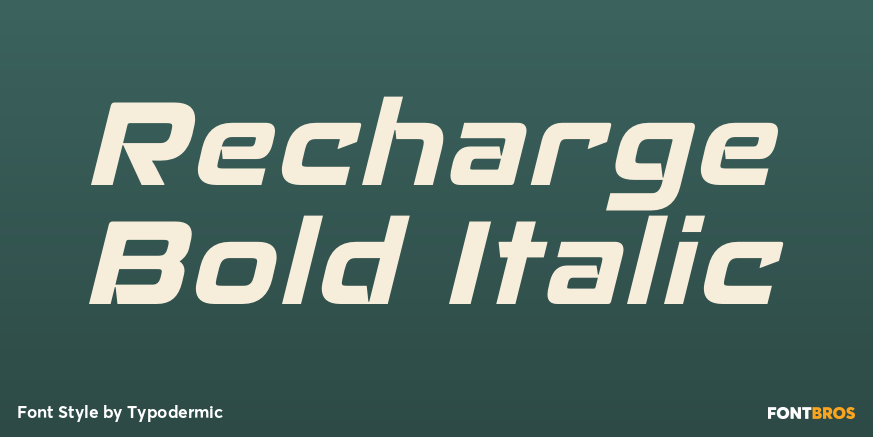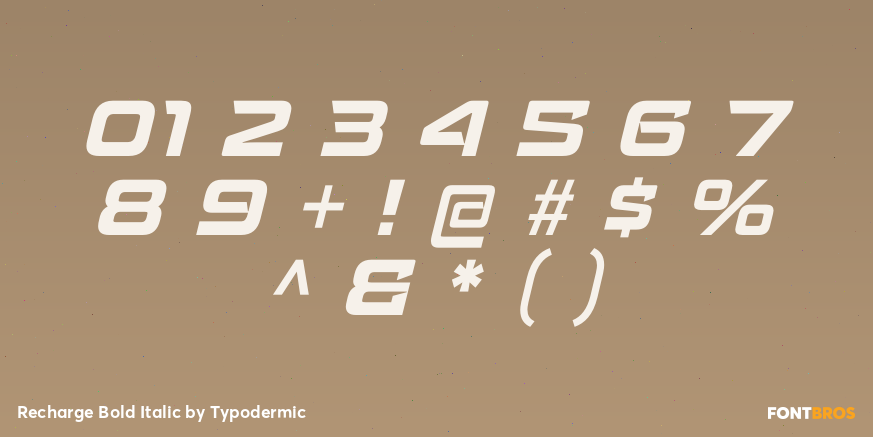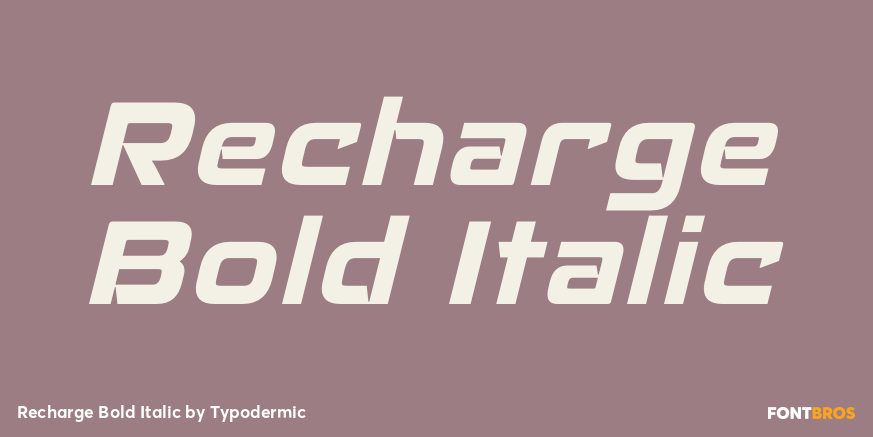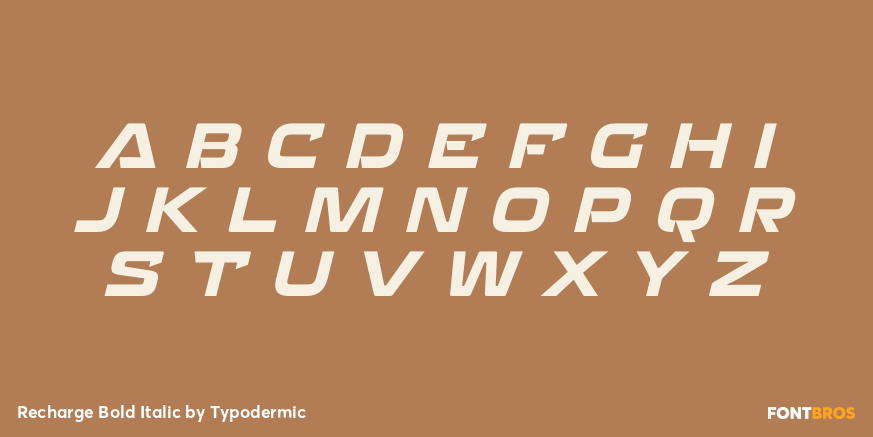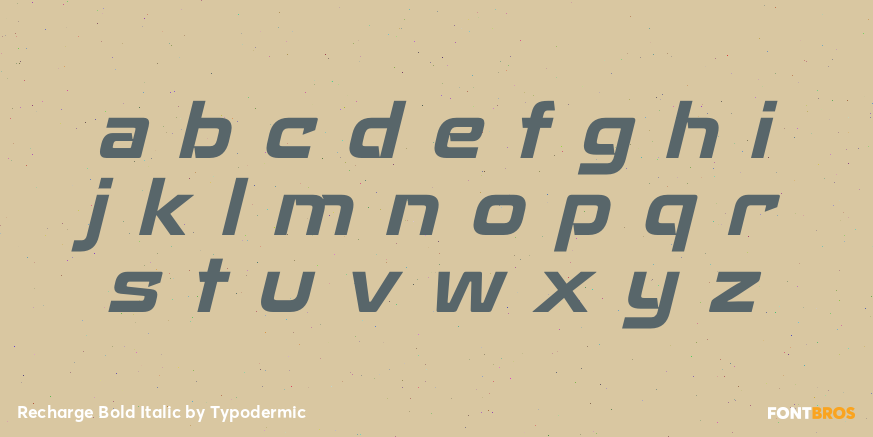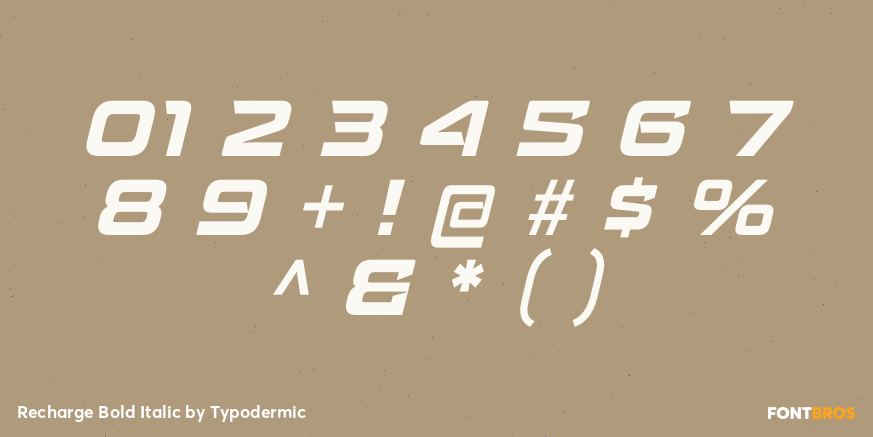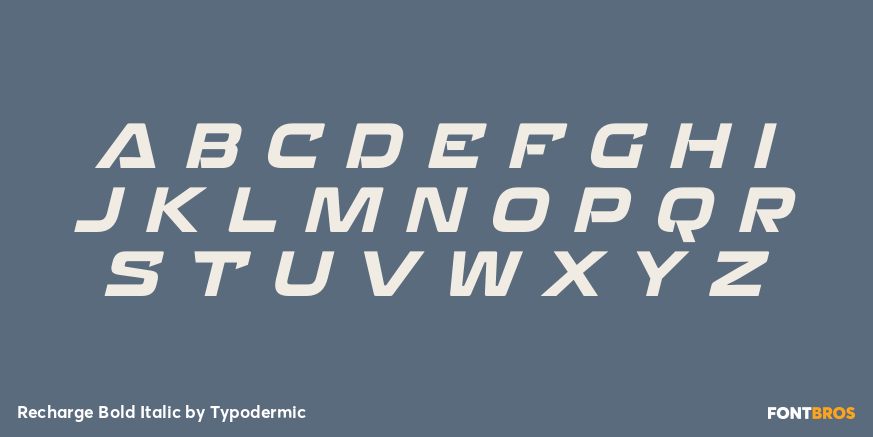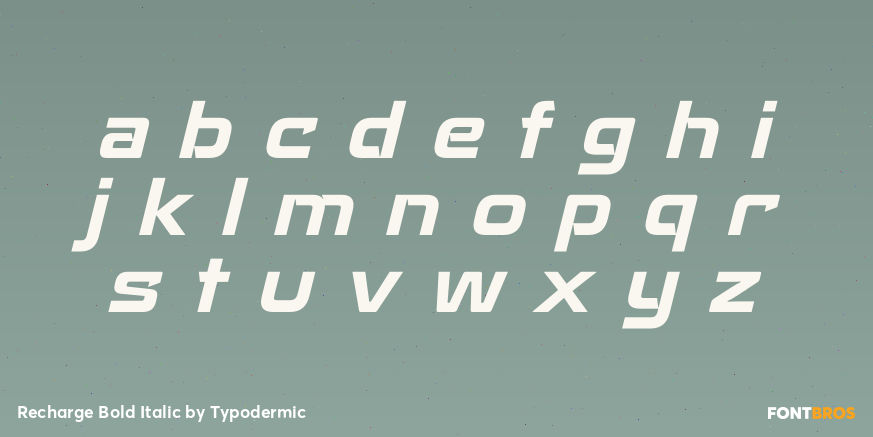
Recharge Bold Italic
Technical typography is often designed to squeeze into tight spaces. Condensed letters, forward slants, and aggressive cuts have become shorthand for speed and performance, even when the product itself offers a broad housing, cabinet, frame, vehicle panel, or exhibition wall. Recharge takes the opposite approach. Its expanded forms use the available space, turning a short product or platform name into a structural graphic element rather than a label tucked beside the hardware.
That makes Recharge particularly effective for power and charging equipment. Residential battery systems, portable power stations, commercial battery cabinets, EV chargers, solar-storage equipment, marine power systems, and backup-power products all provide large physical surfaces where a name can become part of the industrial design. Recharge can spread a product family, model tier, or capacity name across an enclosure, charger fascia, package front, dealer display, installation showroom, or launch campaign with a planted, engineered presence.
Robotics and high-tech B2B equipment suit the same approach. Industrial robots, collaborative robots, autonomous warehouse systems, inspection platforms, machine-vision equipment, semiconductor machinery, industrial sensing, photonics, test systems, and advanced manufacturing platforms often have expensive hardware that is technically impressive but visually anonymous. Recharge gives machine names, platform names, and technology families enough presence for robot housings, demonstration cells, shipping cases, product videos, trade-show booths, and large presentation screens.
Premium fitness and training equipment provides another strong territory. Connected strength machines, commercial cardio equipment, rowing machines, smart bikes, indoor cycling trainers, ski trainers, performance racks, and athlete-testing systems can use Recharge for machine-series names, side-panel graphics, model badges, training-zone names, dealer displays, launch graphics, and facility walls.
Motorsport and performance hardware benefit for similar reasons. Wheels, brakes, suspension systems, tires, EV performance components, racing electronics, simulator rigs, bicycle components, skis, snowboards, helmets, and other technical hardgoods can use Recharge for product families, model names, equipment graphics, packaging, paddock displays, and launch campaigns. Instead of relying on compressed italic lettering to imply speed, Recharge creates power by occupying width.
Large screens give it room to work the same way. Tournament names, race-series identities, athlete introductions, starting-grid graphics, championship titles, arena LED displays, esports stage graphics, sponsor backdrops, and opening sequences can turn its broad geometry into part of the composition.
Recharge is a wide technical display family for products and systems whose names deserve more than the leftover space. Across battery cabinets, robot housings, training machines, performance equipment, vehicle graphics, and trade-show walls, its expanded geometry turns typography into part of the product’s physical presence.